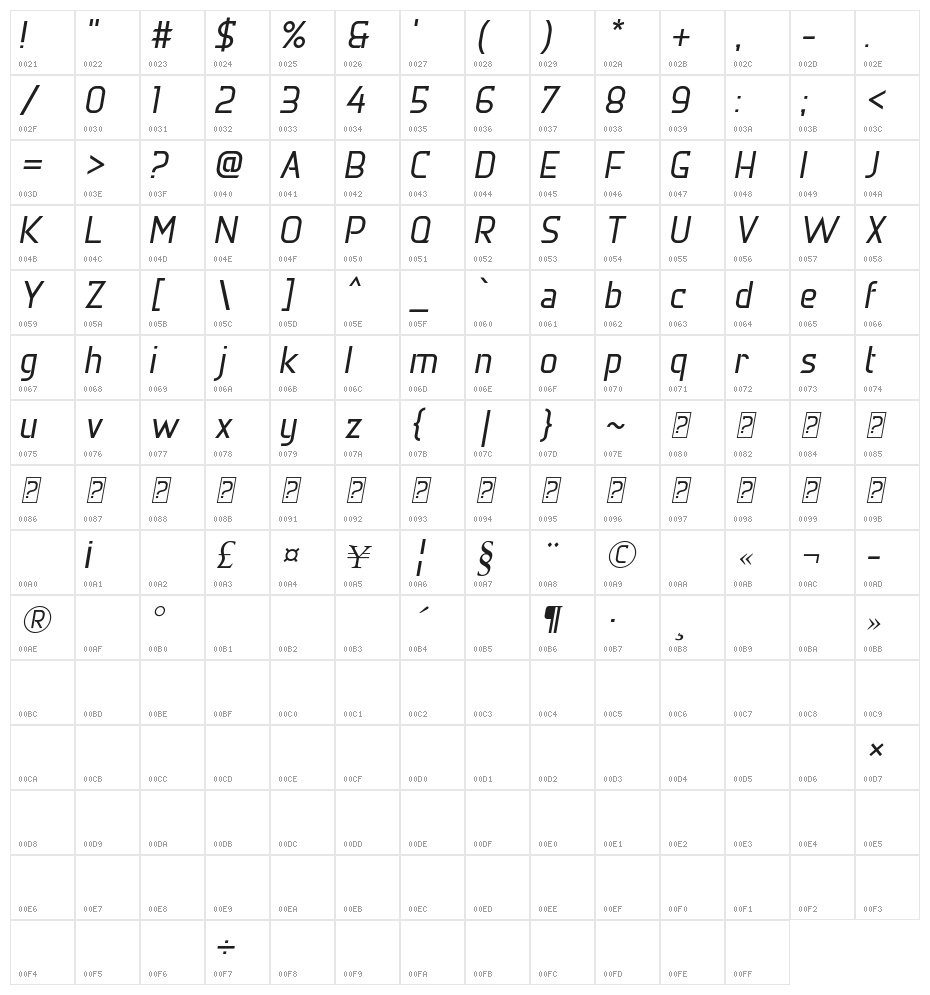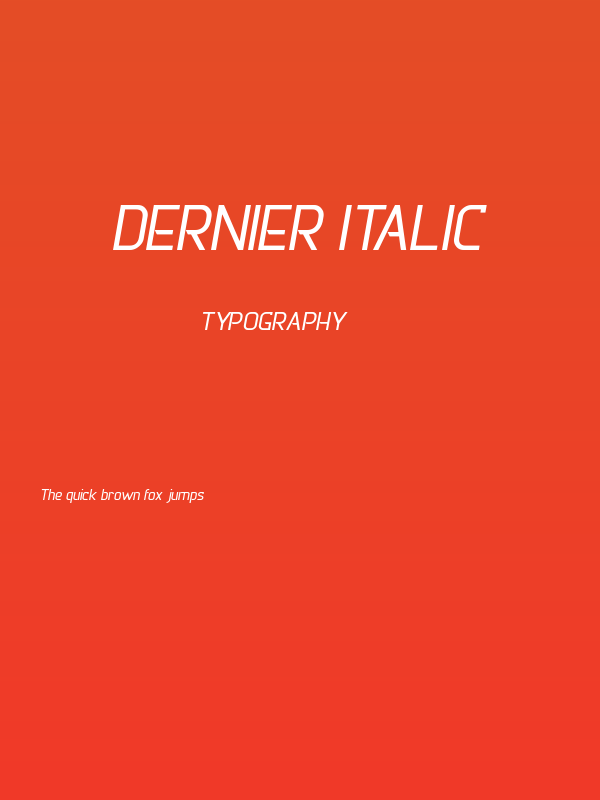
DERNIER Italic Font
DERNIER Italic Description
This font features a sleek, modern design with a distinct italic slant, giving it a dynamic and forward-moving appearance. The characters are crafted with precision, showcasing a geometric structure that maintains readability while adding a touch of sophistication. The uppercase and lowercase letters are well-balanced, with consistent stroke widths that provide a harmonious look. The numerals and special characters are designed to complement the alphabet, ensuring uniformity across all text. This font is ideal for projects that require a contemporary and professional aesthetic.
| Proposed Projects | Ideal for branding, advertising, digital interfaces, and editorial design. |